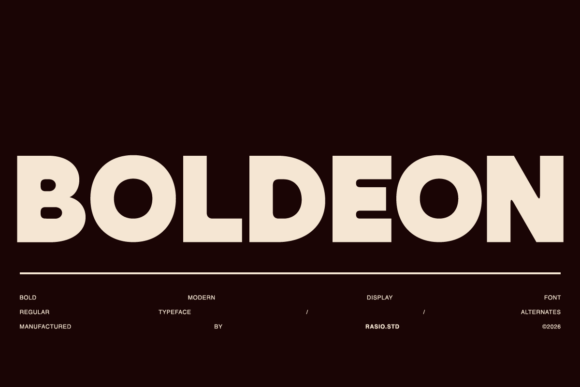
The Power of Boldeon: Unleashing Impactful Typography
I’ll never forget the time I was working on a project for a bold, edgy fashion brand. My client wanted a font that would make their brand name pop on their packaging and marketing materials. I scoured the internet for the perfect typeface, but nothing seemed quite right. That was until I stumbled upon Boldeon. This powerful, bold display font has been a game-changer for my design work, and I’m excited to share its awesomeness with you! 😊
An Honest Review of Boldeon
- ✨ **Chunky letterforms**: Boldeon’s geometric construction and chunky letterforms make it perfect for grabbing attention and leaving a lasting impression.
- ✅ **Design flexibility**: The font includes uppercase, lowercase, numerals, punctuation, and alternates, giving you plenty of options to play with.
- 💥 **Impactful headlines**: Boldeon is designed to make a statement, making it ideal for impactful headlines, posters, product branding, logo designs, and bold editorial layouts.
While Boldeon is an amazing font, there are a few things to keep in mind:
- ⚠️ **Legibility at small sizes**: Due to its bold nature, Boldeon may not be the best choice for body text or small font sizes. It’s best used for headlines and display purposes.
- 🤔 **Limited font weights**: Boldeon is currently only available in one weight, which may limit its versatility in certain design projects.
The Story Behind Boldeon
Boldeon was designed by a team of typographers who wanted to create a font that would make a bold statement. Inspired by the geometric shapes and chunky lines of urban landscapes, Boldeon is the perfect fusion of form and function. Whether you’re a designer, craftsperson, or creative hobbyist, Boldeon is sure to become a favorite in your typography arsenal.
Q: What is Boldeon font?
A: Boldeon is a powerful, bold display typeface designed to grab attention and leave a lasting impression.
Q: Is Boldeon suitable for body text?
A: No, Boldeon is best used for headlines and display purposes. Its bold nature makes it less suitable for body text or small font sizes.